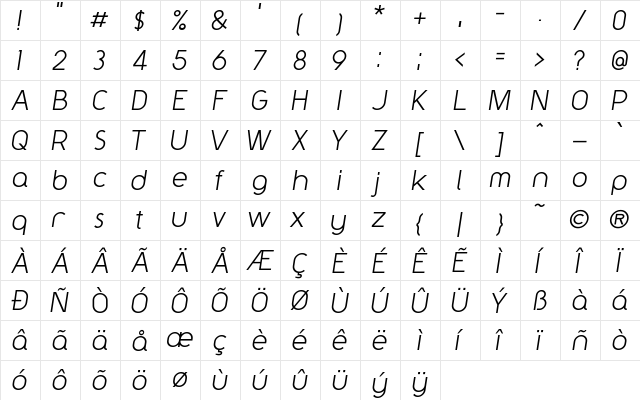
Y2K Neophyte Italic
Design Context for Y2K Neophyte Typeface
Y2K Neophyte offers clean, dependable letterforms without strong stylistic allegiance, making it a practical choice for designers who need flexibility. The dynamic lean of this cut emphasises speed and emphasis in any layout.
Pro Tip: Try Y2K Neophyte for annotation and caption copy alongside an upright companion — the contrast in angle creates a dynamic but ordered typographic system.